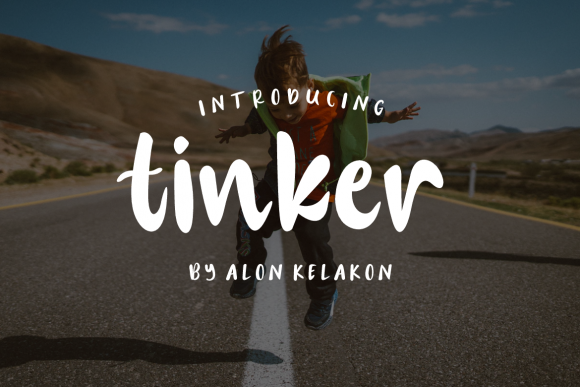
Embark on a typographic odyssey with Tinker, the remarkable script font that exudes a casual sophistication like no other. With its enchanting flow, Tinker dances across the page, captivating the eyes and leaving a lasting impression. Let your creativity soar as you discover the endless possibilities that Tinker holds.
Enter the world of Tinker, a font that captures the essence of handwritten beauty. With its graceful curves and playful personality, Tinker breathes life into your words, adding a touch of charm to every project. It's a font that speaks to the heart, evoking feelings of nostalgia and warmth. Tinker is the perfect choice for adding a personal touch to your designs.
Dive into the depths of Tinker's versatility. Whether you're crafting elegant invitations, enchanting logos, or eye-catching social media posts, Tinker effortlessly adapts to your creative vision. From whimsical to formal, Tinker's diverse range of styles ensures that your designs stand out from the crowd. Unleash your imagination and let Tinker be your guide on this creative journey.
Unleash the power of Tinker, the font that transforms ordinary text into captivating works of art. Its unique ligatures and alternates add an extra layer of sophistication to your designs, ensuring that every word carries weight and meaning. Experience the joy of effortless elegance as Tinker elevates your projects to new heights.